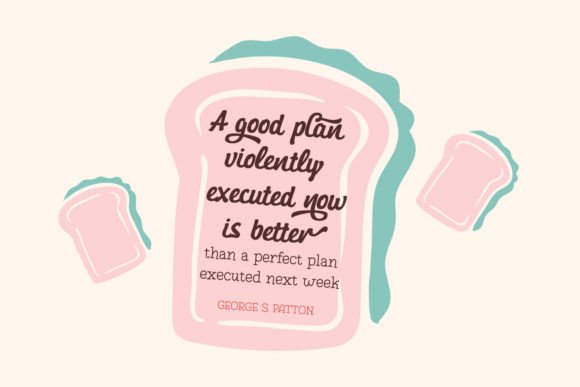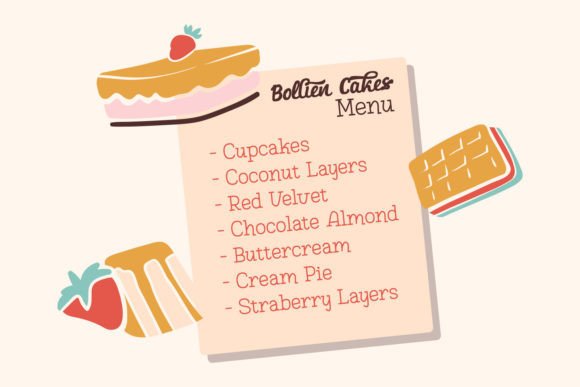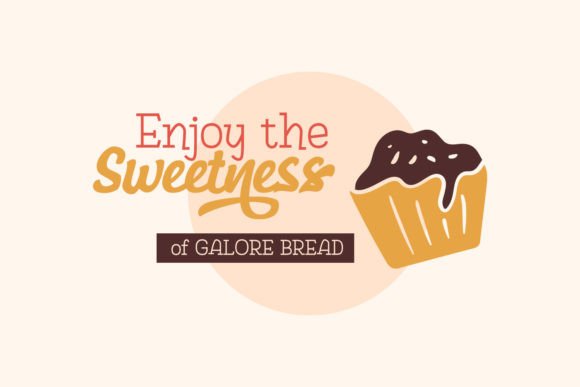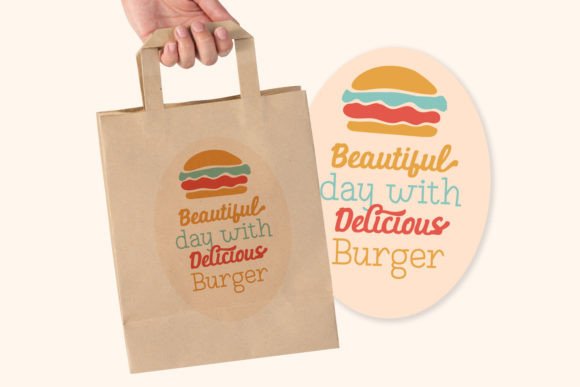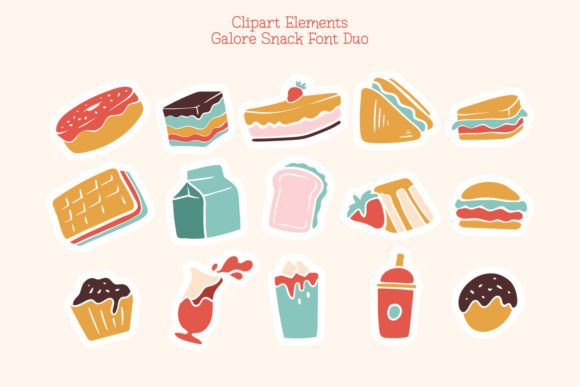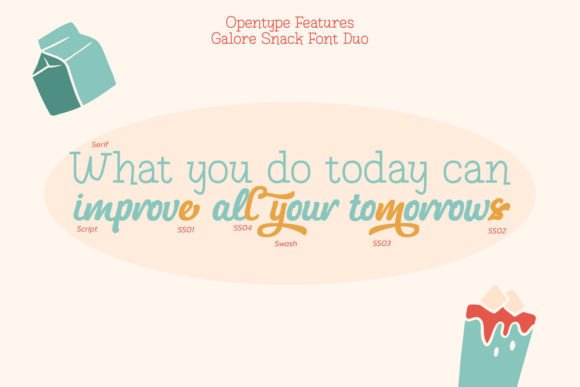
Introducing Galore Snack Font: The Epitome of Attractive Modernity
In the world of typography, fonts play a crucial role in conveying the message and aesthetic of a design project. With numerous font options available, finding the perfect one that balances classic and contemporary design can be a daunting task. However, if you’re looking for a font that embodies attractive modernity, look no further than Galore Snack Font.
A Perfect Balance of Classic and Contemporary Design
Galore Snack Font is the epitome of attractive modernity. Its clean and sharp lines, combined with its timeless and traditional features, create a perfect balance of classic and contemporary design. This unique blend of old and new makes it an excellent choice for designers and crafters who want to add a touch of sophistication to their projects.
Striking and Bold Appearance
One of the standout features of Galore Snack Font is its striking and bold appearance. Its commanding presence makes it perfect for any project that demands attention, such as headlines, titles, and signage. Whether you’re working on a branding project, packaging design, or advertising campaign, Galore Snack Font is sure to make a lasting impression.
Galore Snack Font offers endless design possibilities, making it an excellent addition to any designer’s or crafter’s toolkit. Its versatility allows it to be used in a wide range of projects, from:
- Packaging design
- Digital graphics and social media content
Why Choose Galore Snack Font?
So, why choose Galore Snack Font for your next design project? Here are just a few reasons:
- Unique and distinctive design: Galore Snack Font boasts a unique and distinctive design that sets it apart from other fonts.
- Highly legible: Despite its bold and striking appearance, Galore Snack Font remains highly legible, making it perfect for use in a variety of contexts.
- Versatile: Galore Snack Font can be used in a wide range of projects, from branding and packaging to advertising and digital graphics.
In conclusion, Galore Snack Font is an exceptional choice for designers and crafters looking to add a touch of attractive modernity to their projects. Its perfect balance of classic and contemporary design, striking and bold appearance, and PUA encoding make it an excellent addition to any design toolkit. Whether you’re working on a branding project, packaging design, or advertising campaign, Galore Snack Font is sure to make a lasting impression.